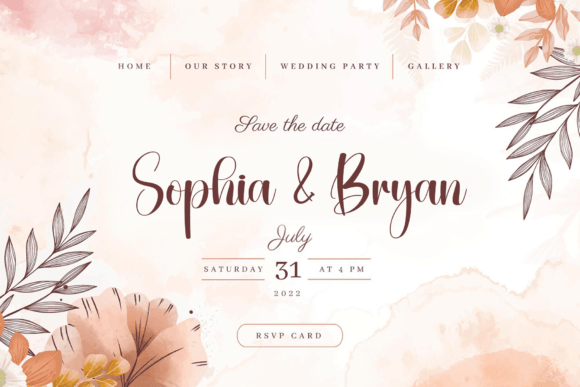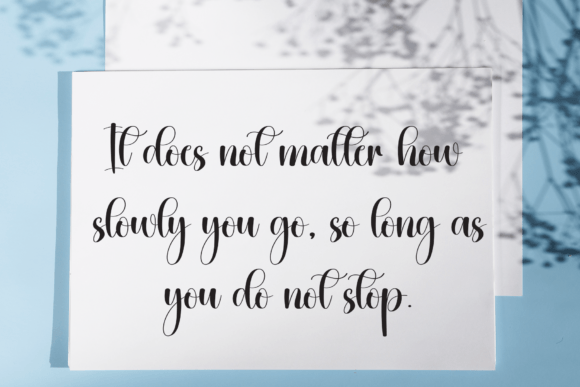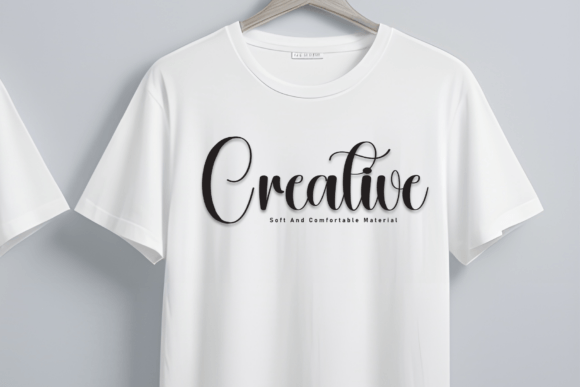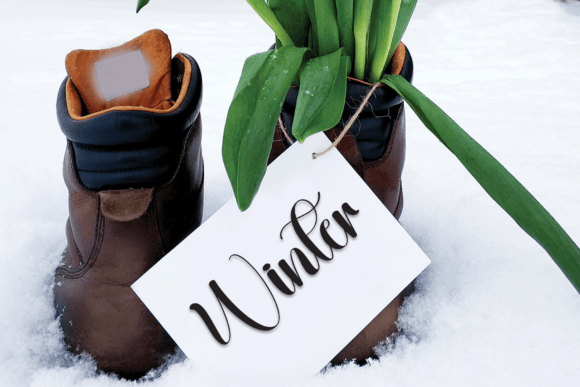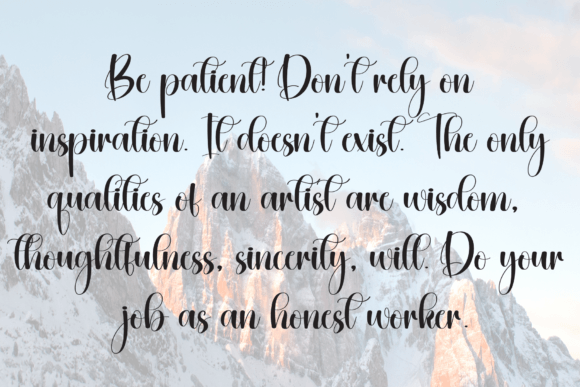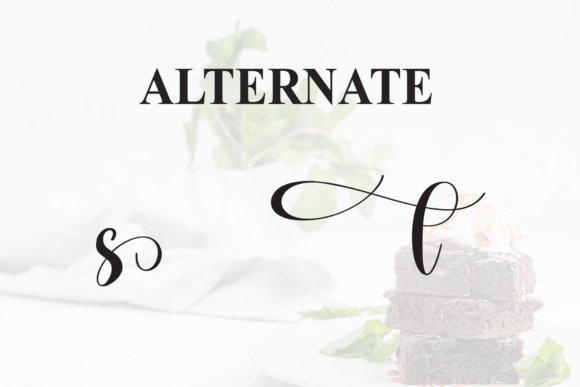
The Sweet Treat of Typography: A Deep Dive into Desserts Font
I’ll never forget the time I was working on a wedding invitation project, and my client asked for a font that was “elegant, yet playful.” I scoured the internet, trying out font after font, but nothing seemed quite right. That was until I stumbled upon Desserts Font. It was like the clouds parted, and the sun shone bright – I had found the perfect fit. In this article, I’ll share my love for Desserts Font, its features, and how to make the most of it in your designs.
An Honest Review of Desserts Font
- ✨ Elegant and stylish script font perfect for wedding invitations, thank you cards, and more
- 💫 Beautifully crafted with a handwritten touch
- 🎨 Versatile and suitable for various design projects, from logos to greeting cards
While Desserts Font is an excellent choice, there are a few things to keep in mind:
- 🤔 Limited availability of certain characters, such as ligatures or special glyphs
- ⚠️ May not be suitable for body text or long-form content due to its script nature
- Experiment with OpenType features, such as stylistic alternates, to add variation to your text.
The Story Behind Desserts Font
Desserts Font was designed with the intention of creating a beautiful, elegant script font that captures the essence of handwritten typography. The designer aimed to create a font that would be perfect for special occasions, such as weddings and anniversaries, while also being versatile enough for everyday design use.
Q: What type of designs is Desserts Font best suited for?
A: Desserts Font is perfect for designs that require an elegant, handwritten touch, such as wedding invitations, thank you cards, quotes, greeting cards, logos, and business cards.
Q: Is Desserts Font available in different weights or styles?
A: Currently, Desserts Font is available in a single weight. However, the font’s elegant design makes it versatile enough to work well in various design contexts.